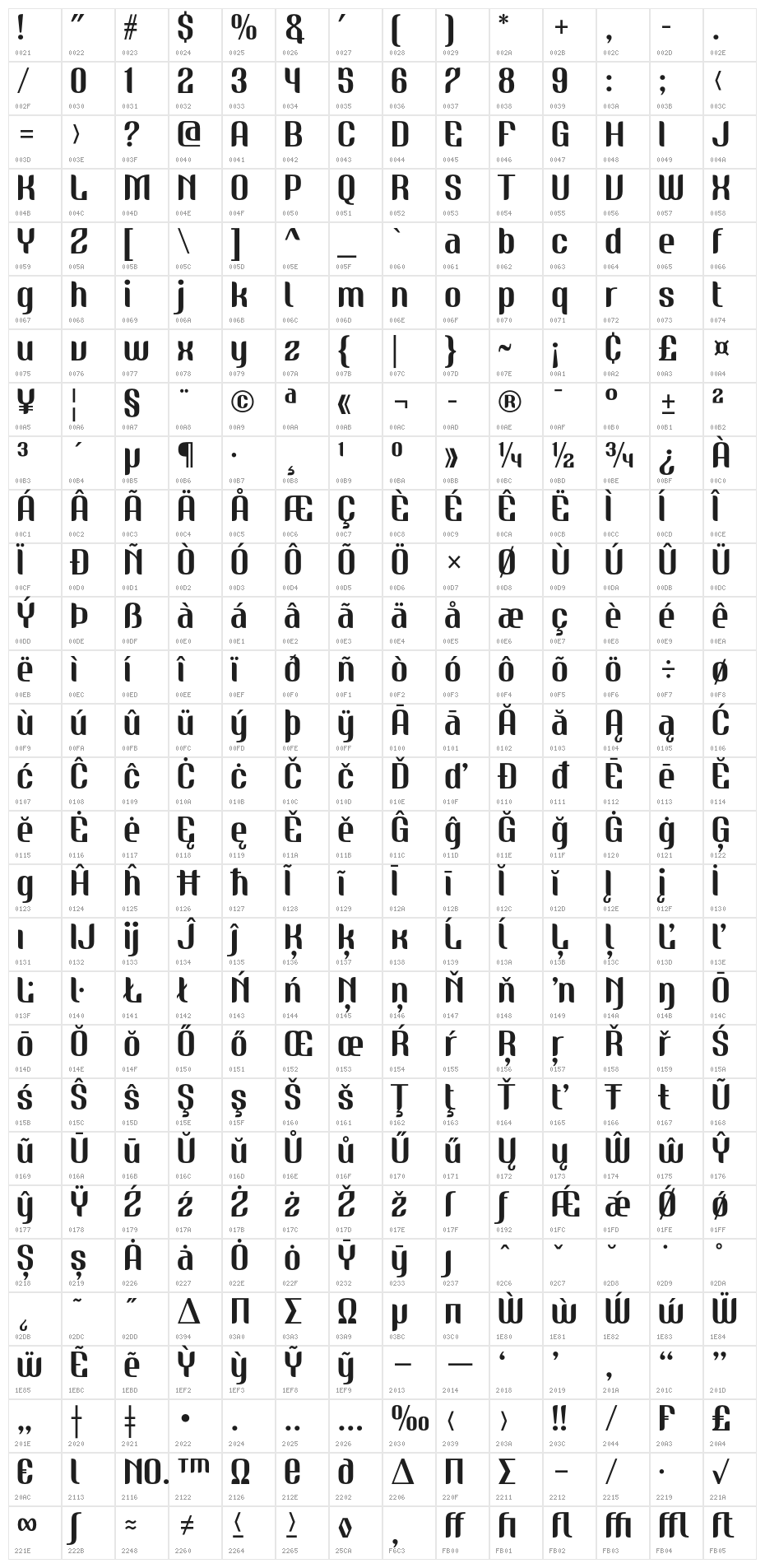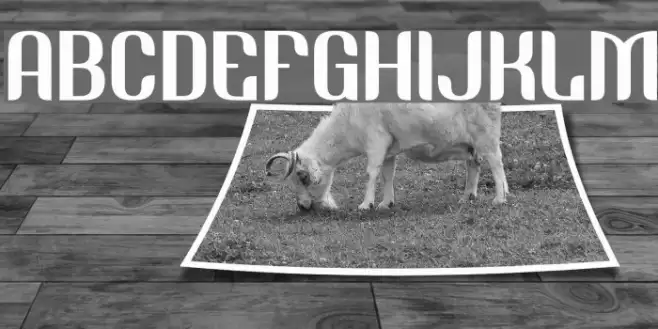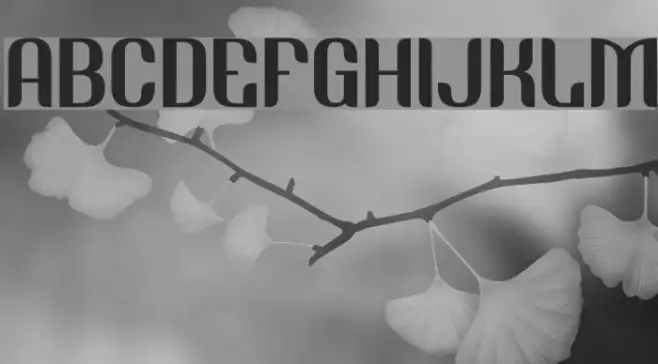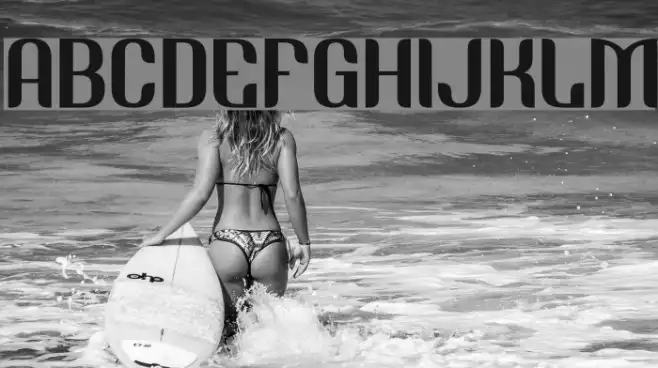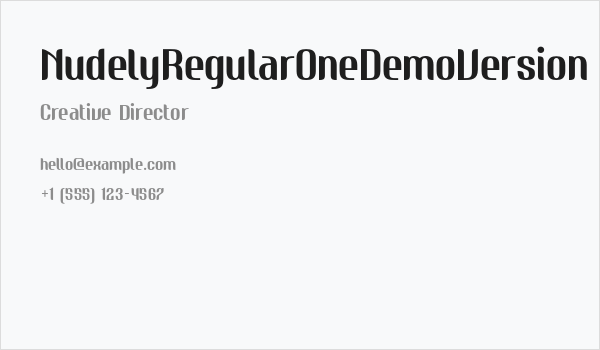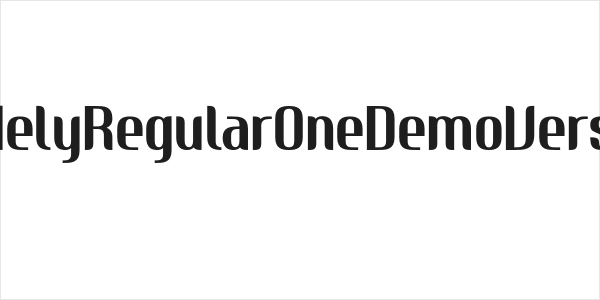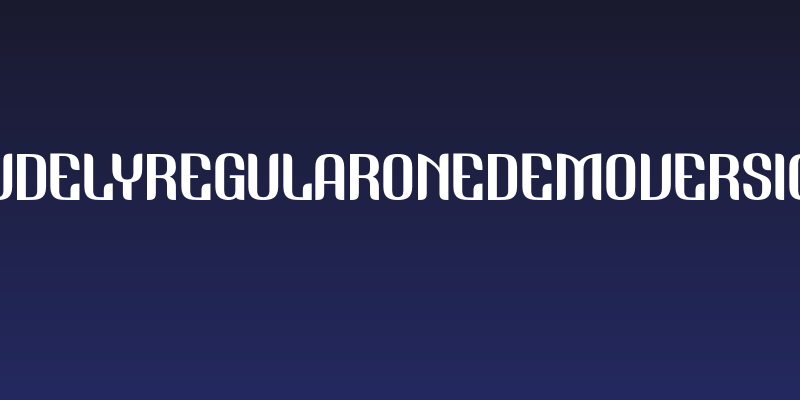
NudelyRegularOneDemoVersion Font
NudelyRegularOneDemoVersion Description
This font features a bold and modern design with a unique blend of rounded and squared elements. The uppercase letters are tall and slightly condensed, giving a strong and impactful appearance. The lowercase letters maintain a consistent style, with smooth curves and a clean finish. The numerals are bold and easily readable, matching the overall aesthetic. Special characters are designed with the same attention to detail, ensuring uniformity across all glyphs. The font's distinct style makes it suitable for a variety of creative applications.